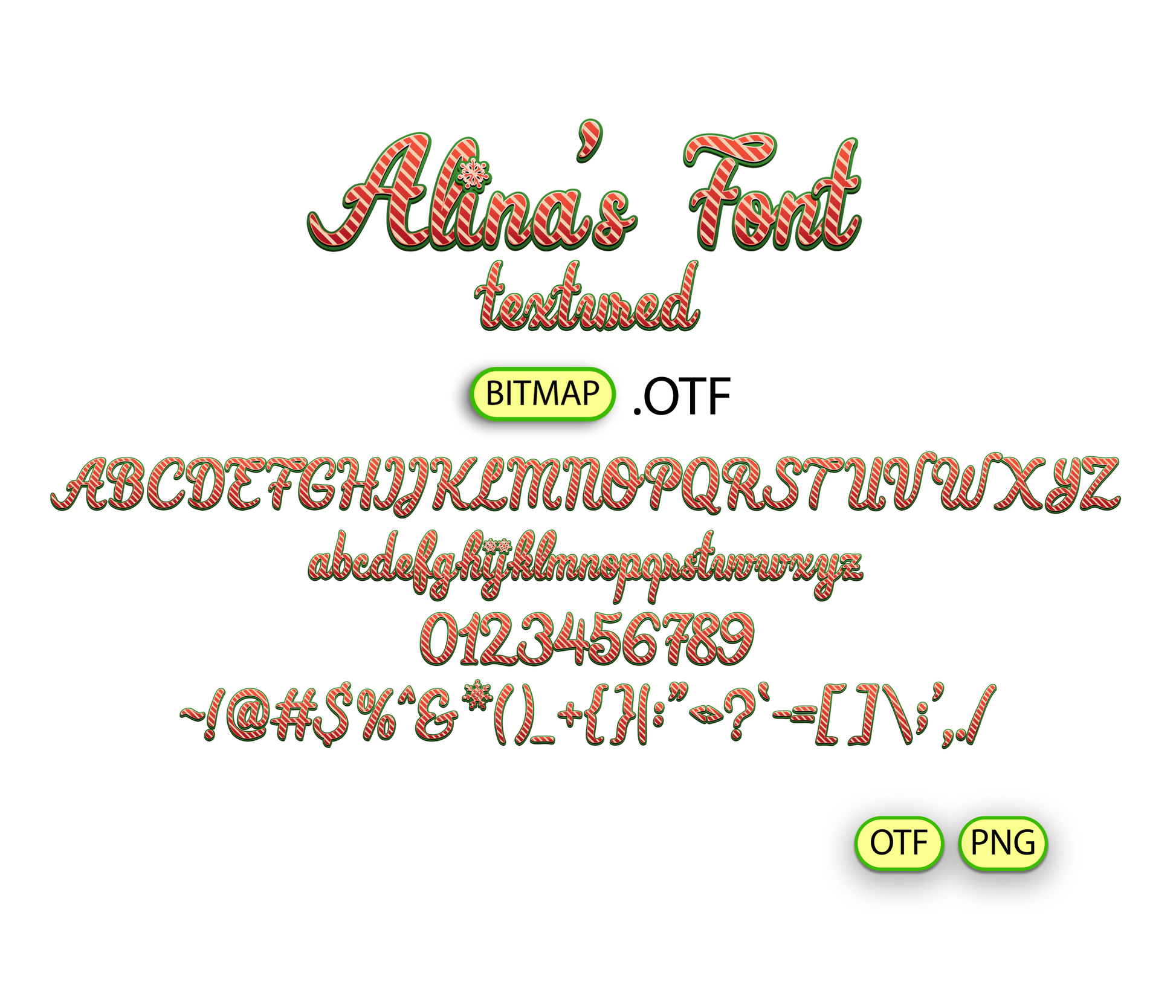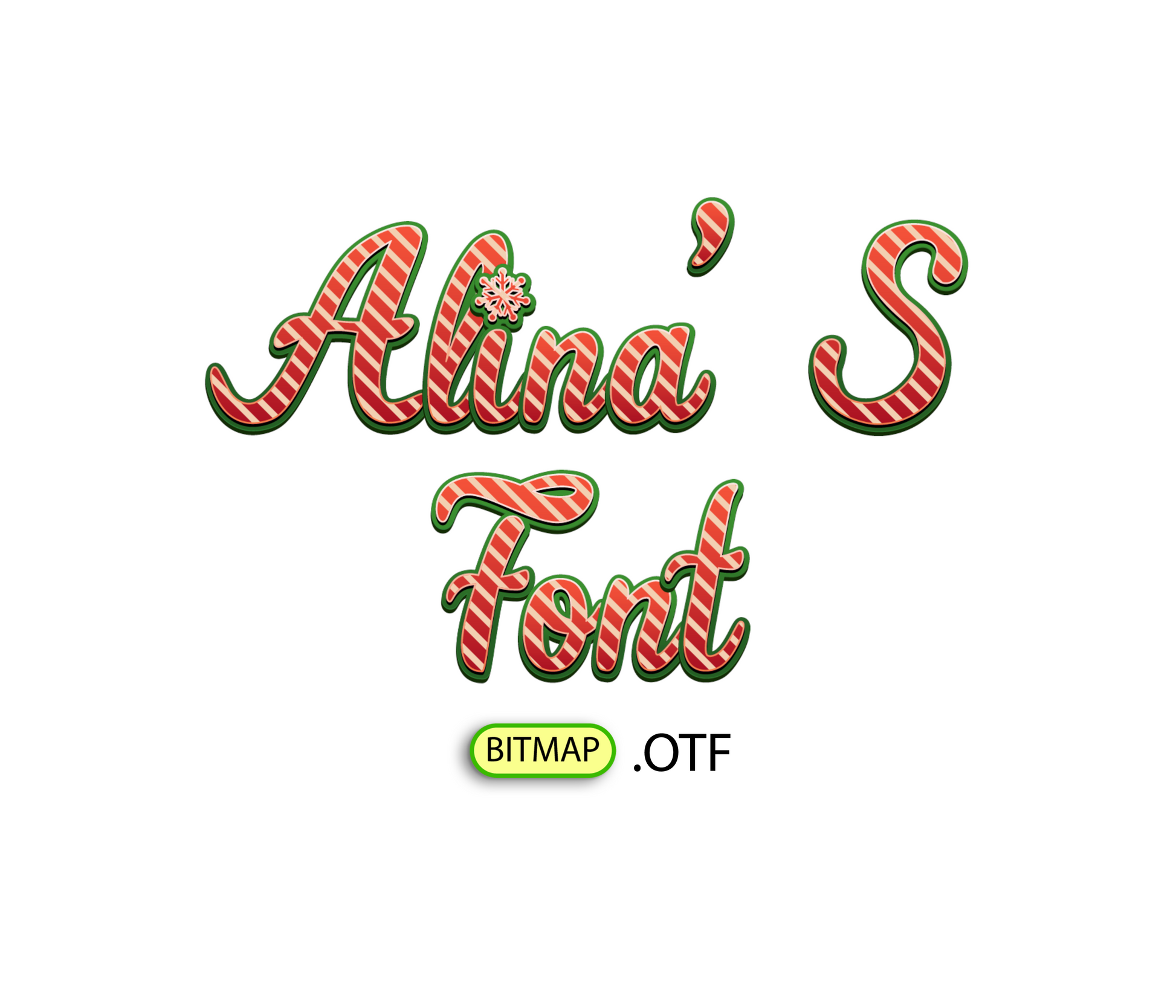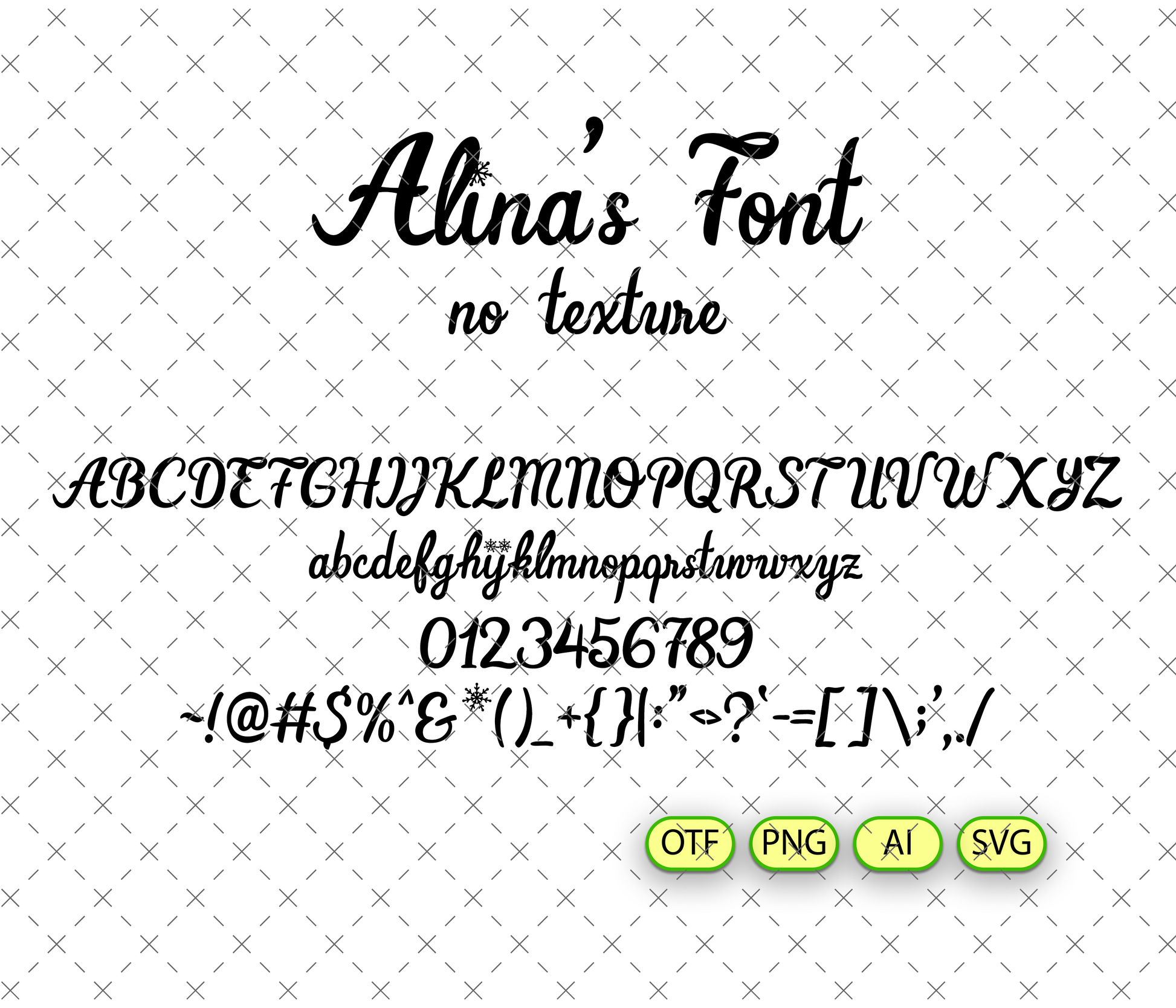
Retro Christmas Font Textured
Retro Christmas Font Script
Step into the nostalgic world of vintage holiday celebrations with our Retro Christmas Font Script, capturing the essence of classic Christmas charm and timeless festive elegance. Perfect for holiday crafters, sublimation designers, small business owners, and creative professionals, this font script brings the warm, nostalgic spirit of retro Christmas to your projects. Create heartwarming greeting cards, merchandise, or digital content with the vintage energy of traditional holiday seasons.
Vintage Script Typography for Holiday Crafts & Seasonal Design
Our Retro Christmas Font Script features elegant, flowing letterforms with vintage-inspired textures reflecting the world of classic holiday decorations and nostalgic seasonal joy.
Our font script pays tribute to the iconic world of vintage holiday traditions and classic festive design, empowering your projects with its nostalgic and elegant spirit. Whether crafting seasonal materials, designing retro Christmas products, or adding a vintage touch to personal projects, this font communicates the heartwarming essence of timeless holiday magic. Ready to inject retro Christmas charm into your creations? This font script is your key to nostalgic, impactful design.